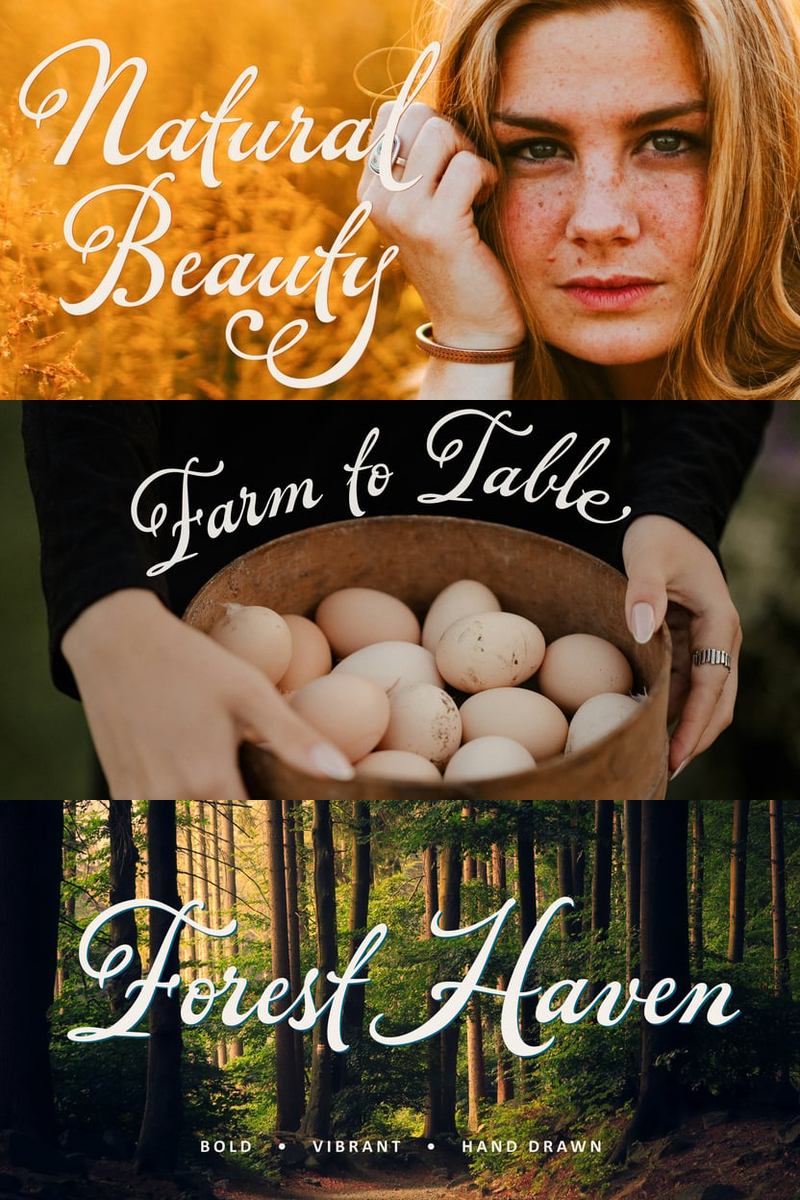
Unlocking Organic Readability: How Forest Haven's Minimalist Design Elevates Educational Branding & Logo Creation
In the bustling digital landscape of education, where every pixel competes for attention, there's a quiet strength in simplicity. We designed Forest Haven to be that strength – a breath of fresh air for learning environments, a serene backdrop for knowledge to blossom.
Imagine stepping into a tranquil grove, where every element serves a purpose, and clarity reigns supreme. That's the essence of Forest Haven, our new minimalist font crafted specifically for educational and learning platforms. It's a modern sans-serif that speaks with a calm, assured voice, stripping away visual clutter to let your message truly resonate. Its clean lines and balanced letterforms evoke a sense of quiet focus, inviting learners to settle in and absorb.
For educators, content creators, and platform developers, the challenge is always to engage, inform, and inspire without overwhelming. This is where Forest Haven steps in. Think of it as your dependable partner, ensuring your valuable content shines through with effortless grace. No more fighting for attention against busy typography; Forest Haven provides a steady, welcoming presence. It builds an unspoken trust, assuring your students that your materials are thoughtfully prepared and easy to navigate. From crafting compelling lesson plans to designing intuitive user interfaces, this font fosters an environment where learning feels natural and inviting.
Forest Haven's core value proposition lies in its ability to transform complex information into accessible knowledge through modern minimalism. It enhances readability, reduces cognitive load, and projects an image of thoughtful professionalism. Your educational brand deserves a voice that is both sophisticated and approachable, and Forest Haven delivers precisely that.
Where Forest Haven Flourishes:
- Logo Design: Picture an online academy's emblem – a simple leaf icon paired with "Veridian Learning" or "Rooted Knowledge Hub" in Forest Haven. The font lends itself perfectly to logos that convey trust, growth, and clarity. Its clean structure ensures your brand mark is memorable and impactful, even at small sizes.
- Online Course Modules: Clear headings, digestible paragraphs, and engaging infographics become even more effective, guiding students seamlessly through their learning journey.
- Lesson Plans & Worksheets: Make instructions easy to follow and content a joy to read, reducing student frustration and boosting comprehension.
- Educational Websites & Apps: Create an intuitive, welcoming user experience where navigation is effortless and content is paramount.
- Presentations & Webinars: Deliver information with a clean, professional aesthetic that keeps your audience focused on your message, not distracting fonts.
- Digital Textbooks & E-books: Improve the reading experience, making long-form content less intimidating and more enjoyable.
Forest Haven: Cultivate Clarity. Inspire Learning.